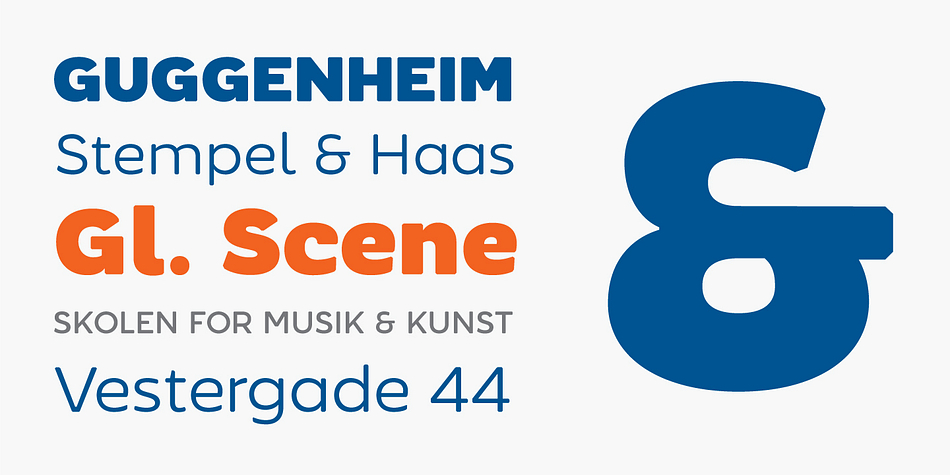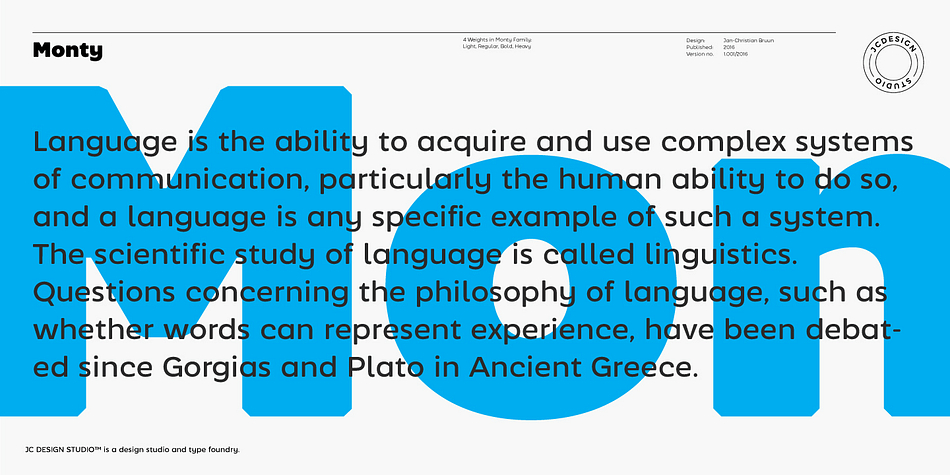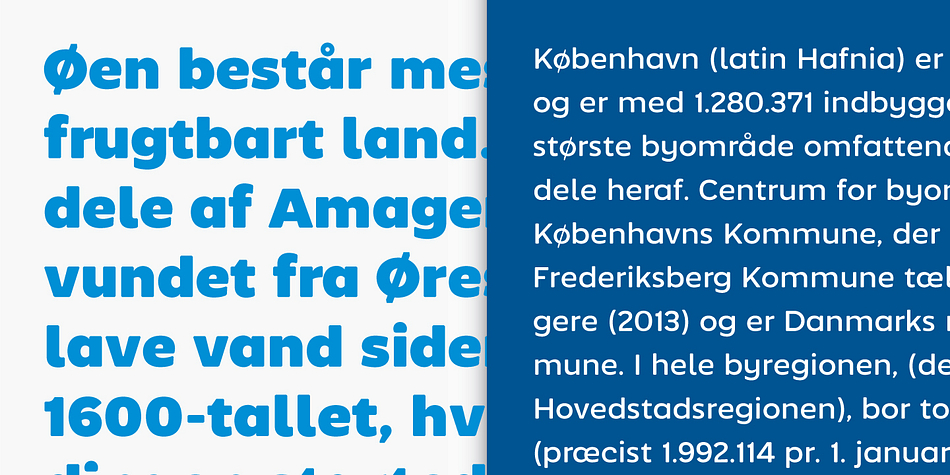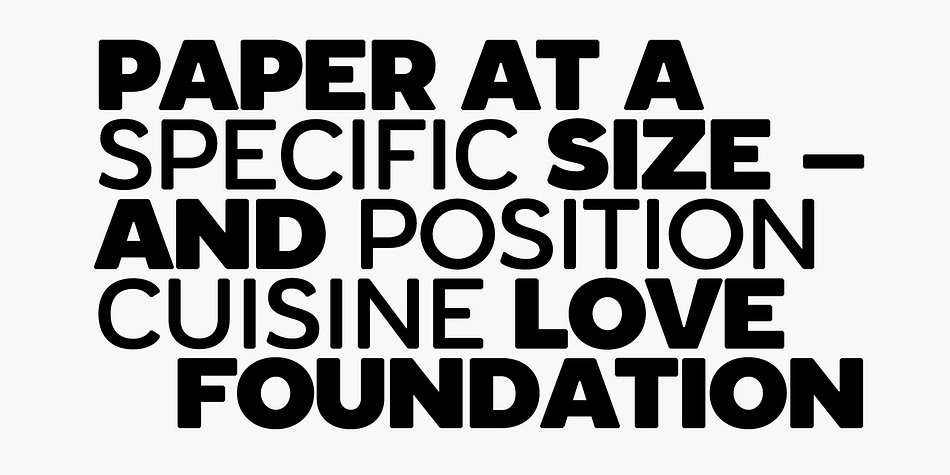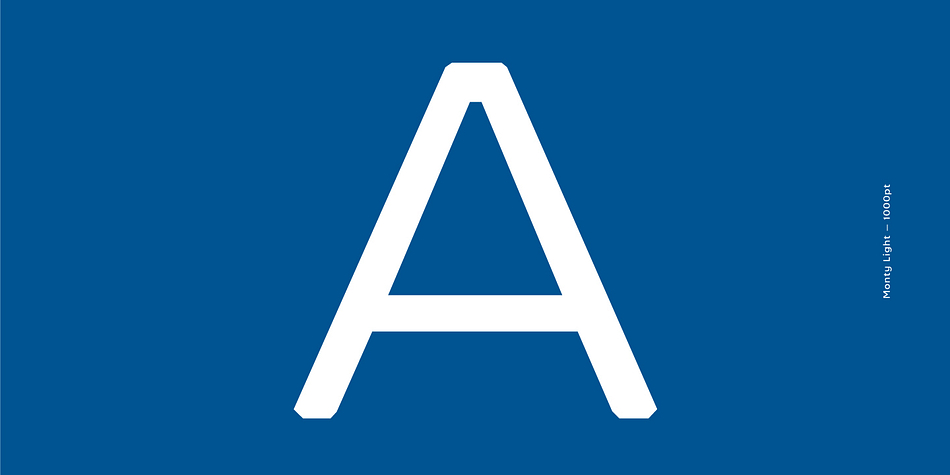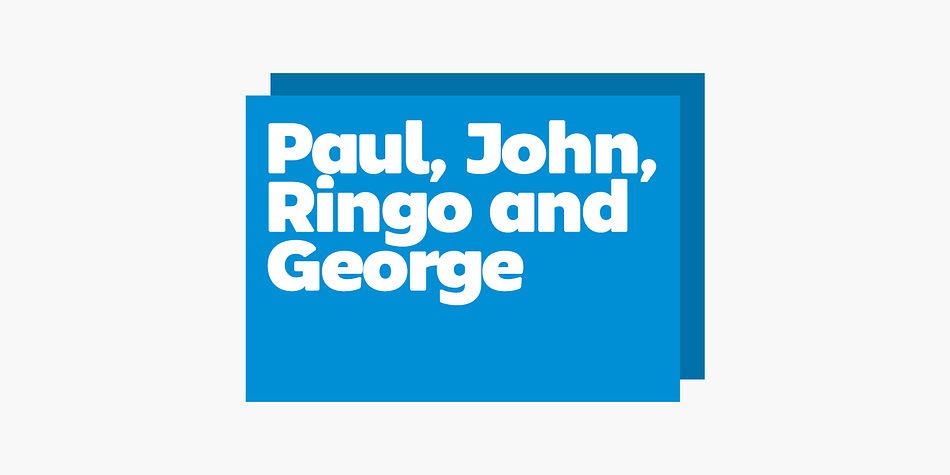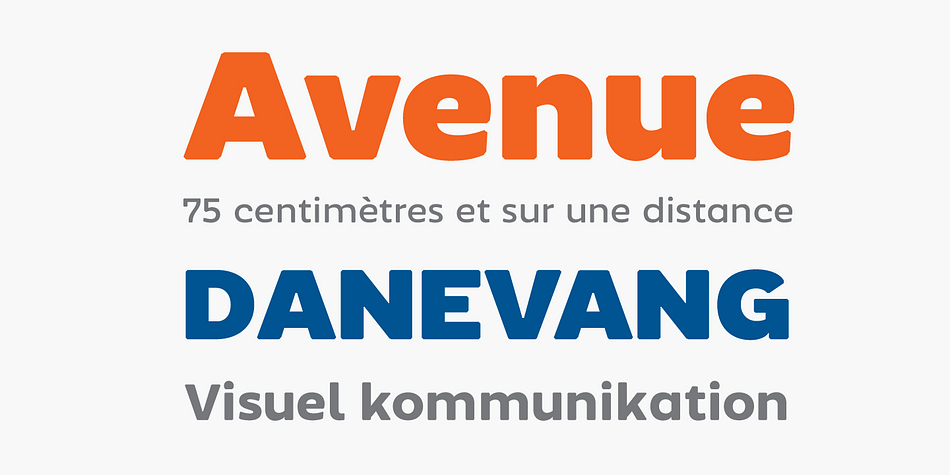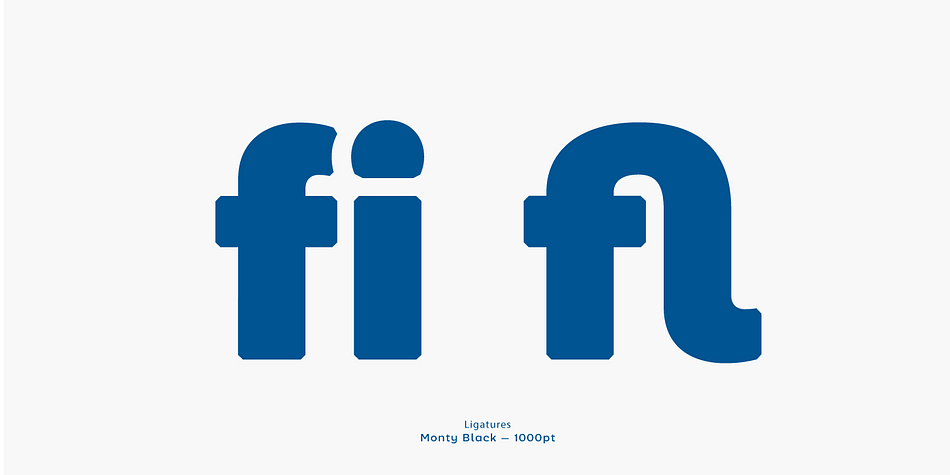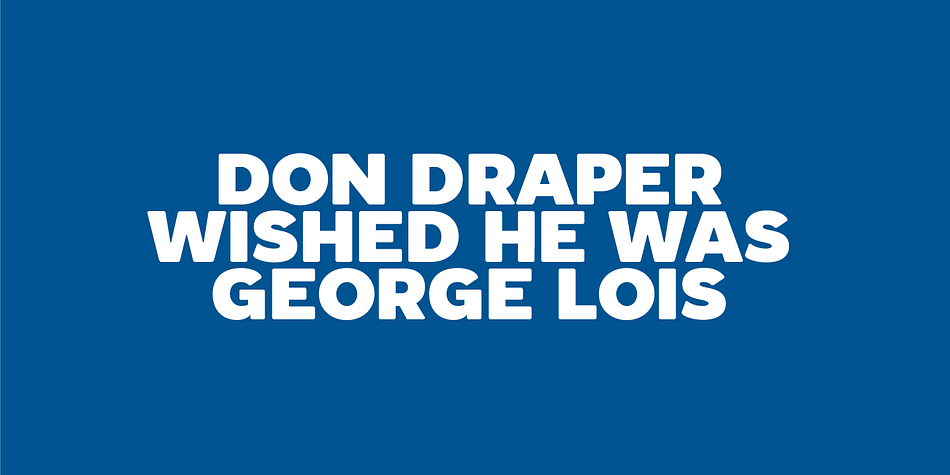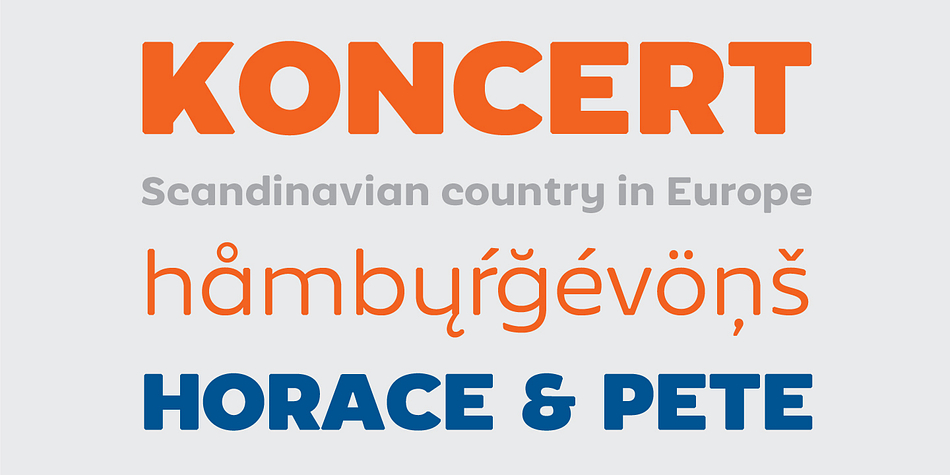
Designed by Jan-Christian Bruun, Monty is a sans serif font family. This typeface has four styles and was published by JC Design Studio.
Monty is a new re-designed font family characterized as grotesque sans serif.
The dynamics of the letters G, K and A adds an additional sharpening and a rounded softness to all of scripture and provide extra versatility, which makes Monty an excellent tool for a variety of purposes, from signage, posters, posters for branding and editorial design.
The font is designed for various use. Set it to task for marketing, packaging,
editorial work, branding, and even projects on the screen.